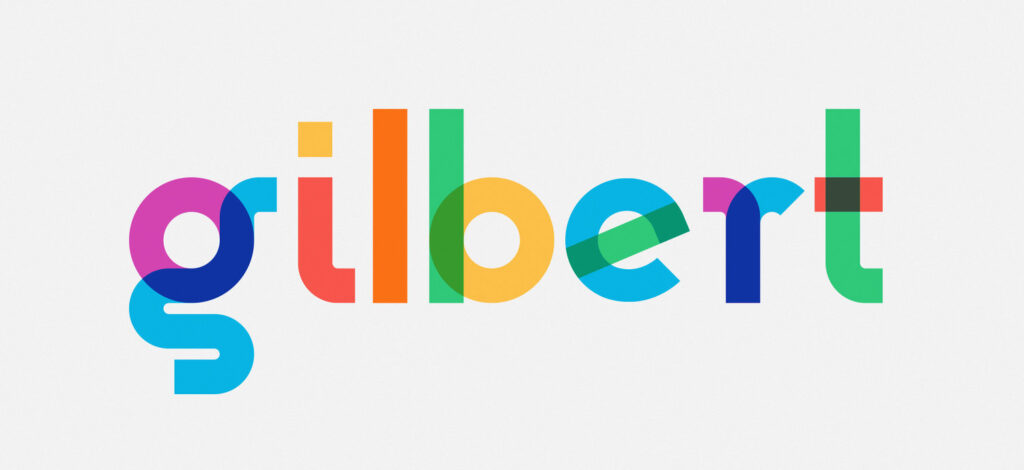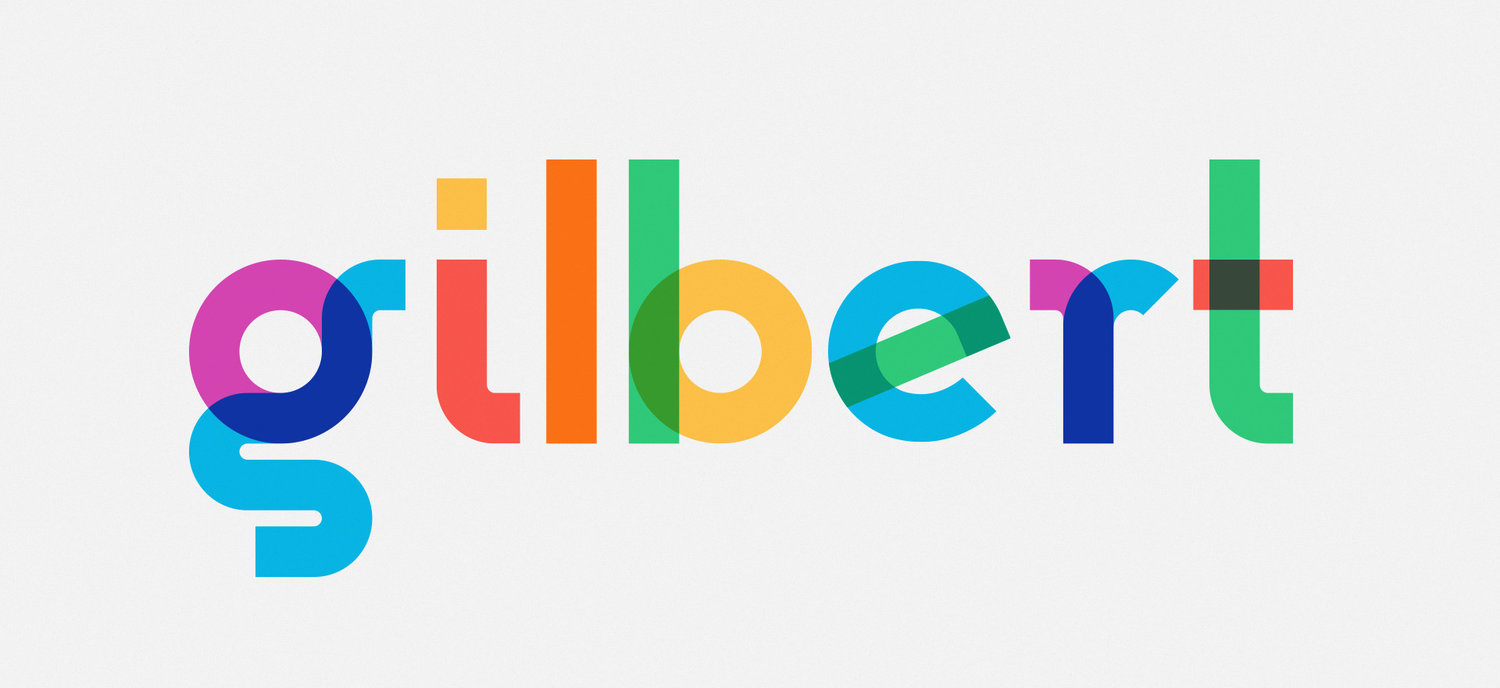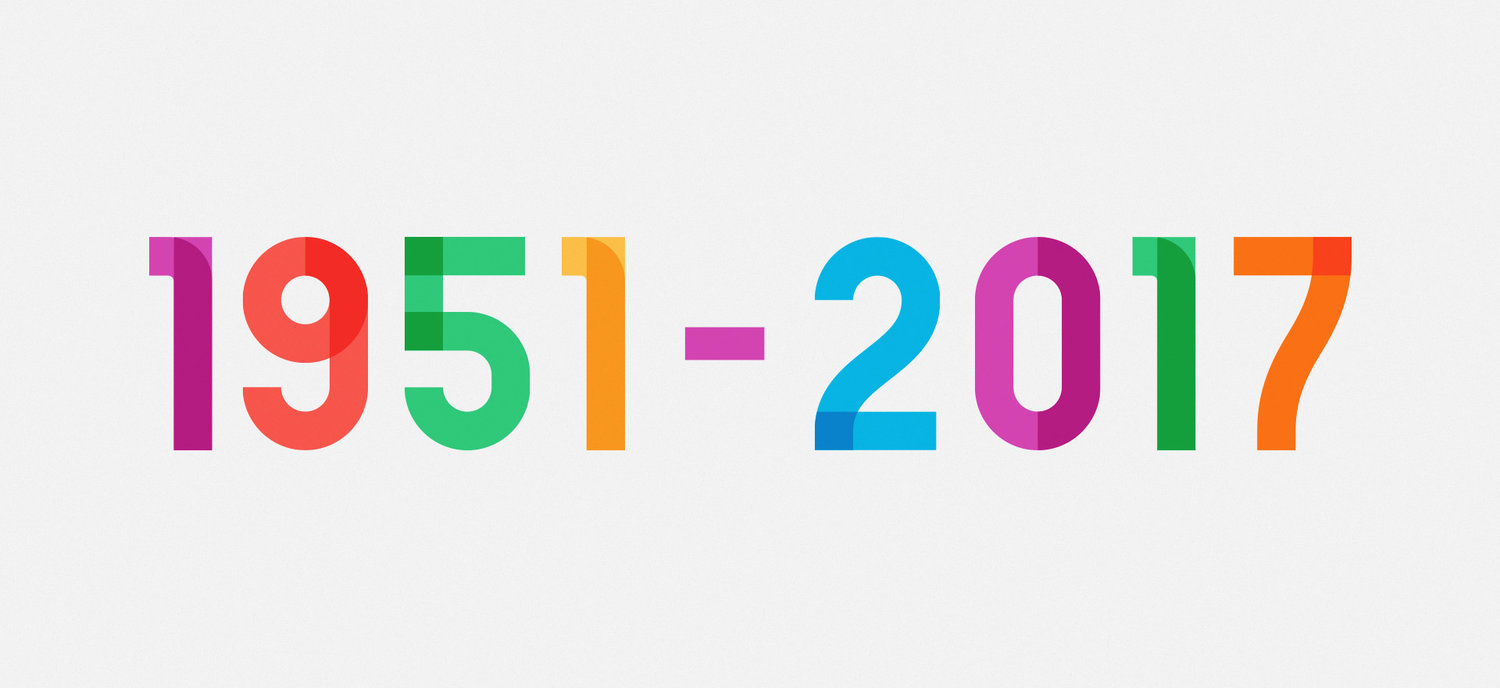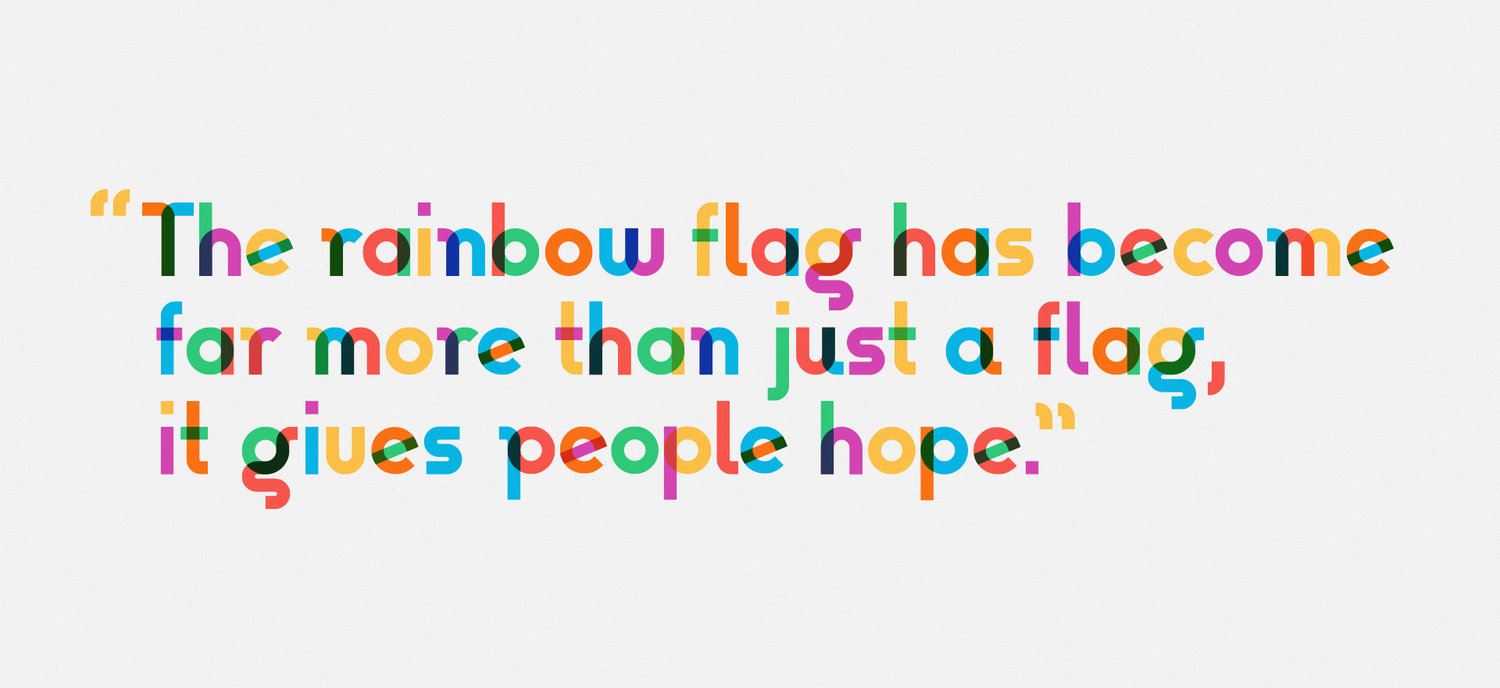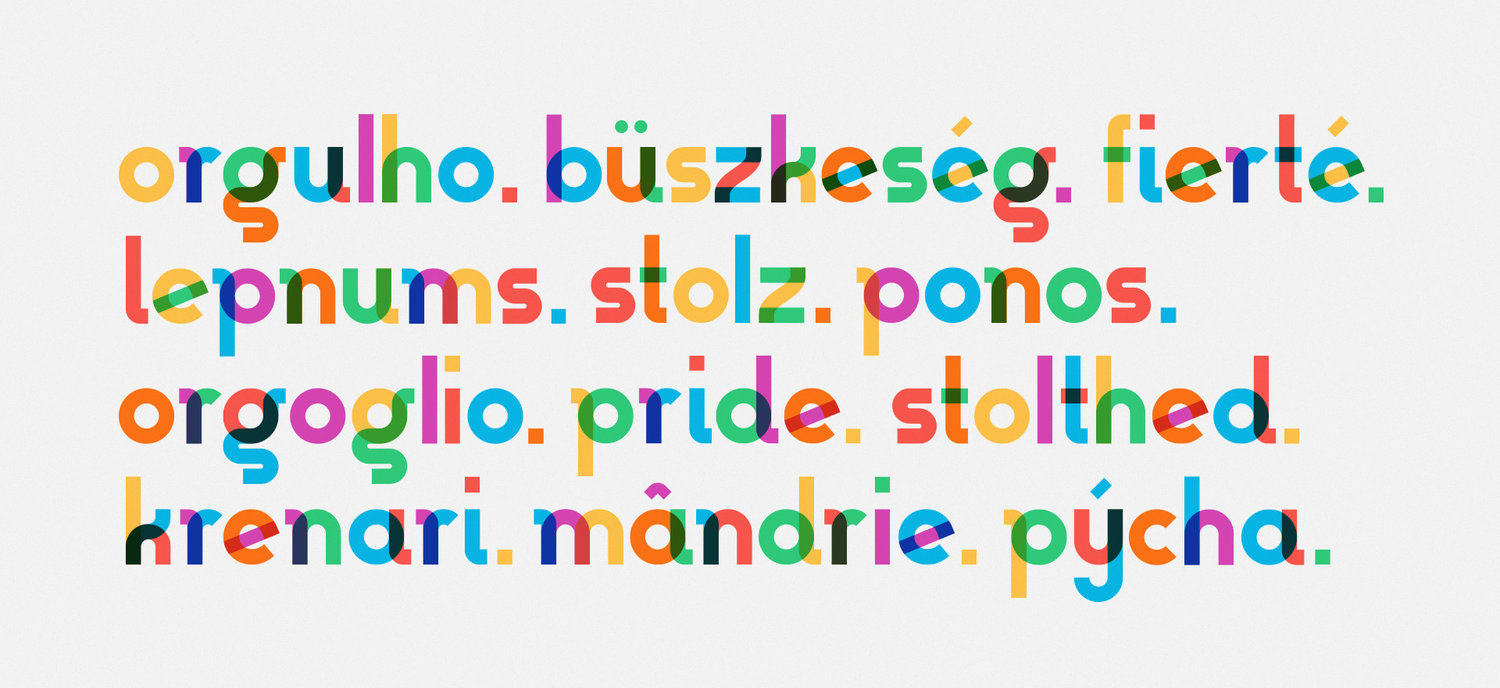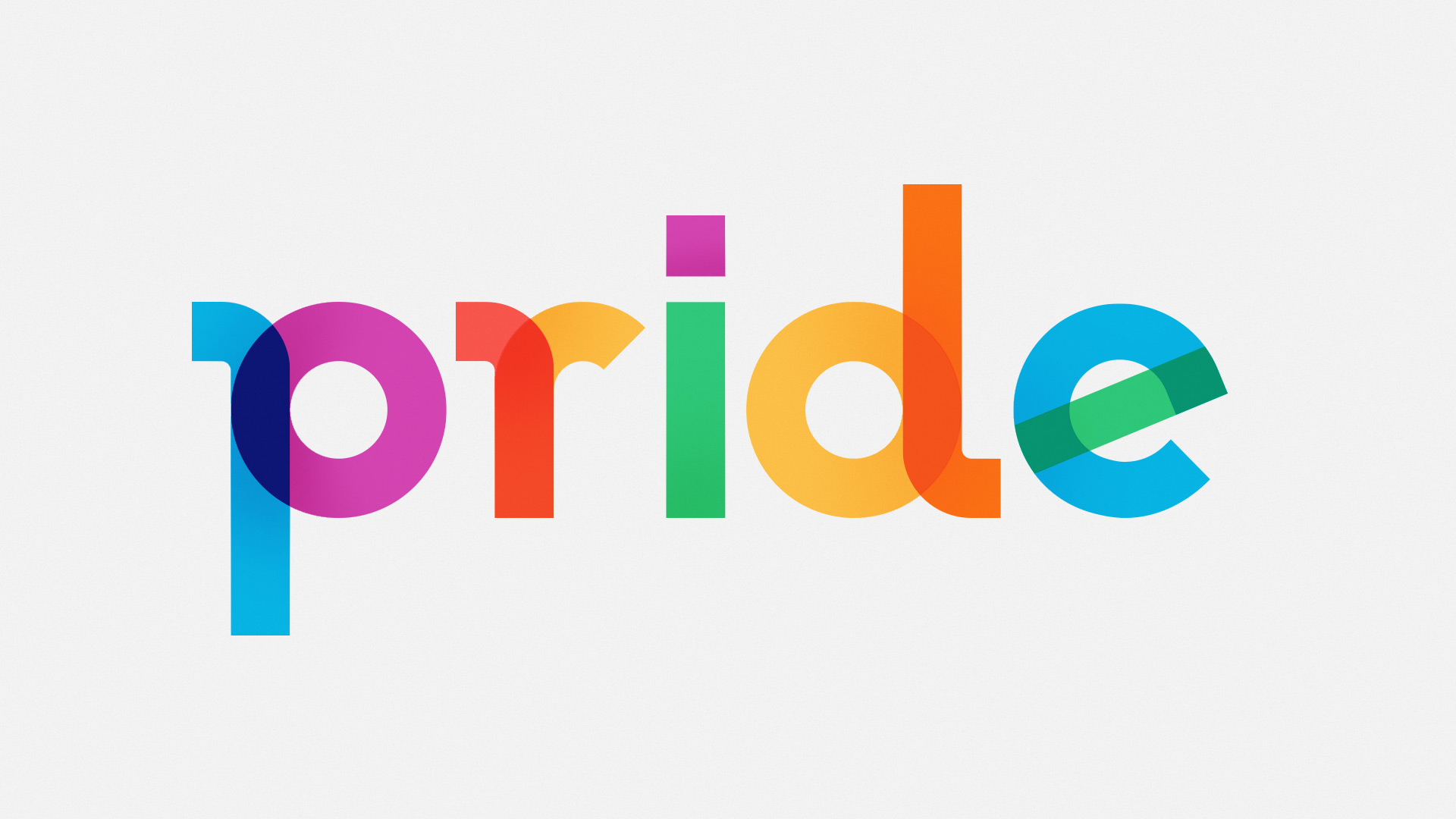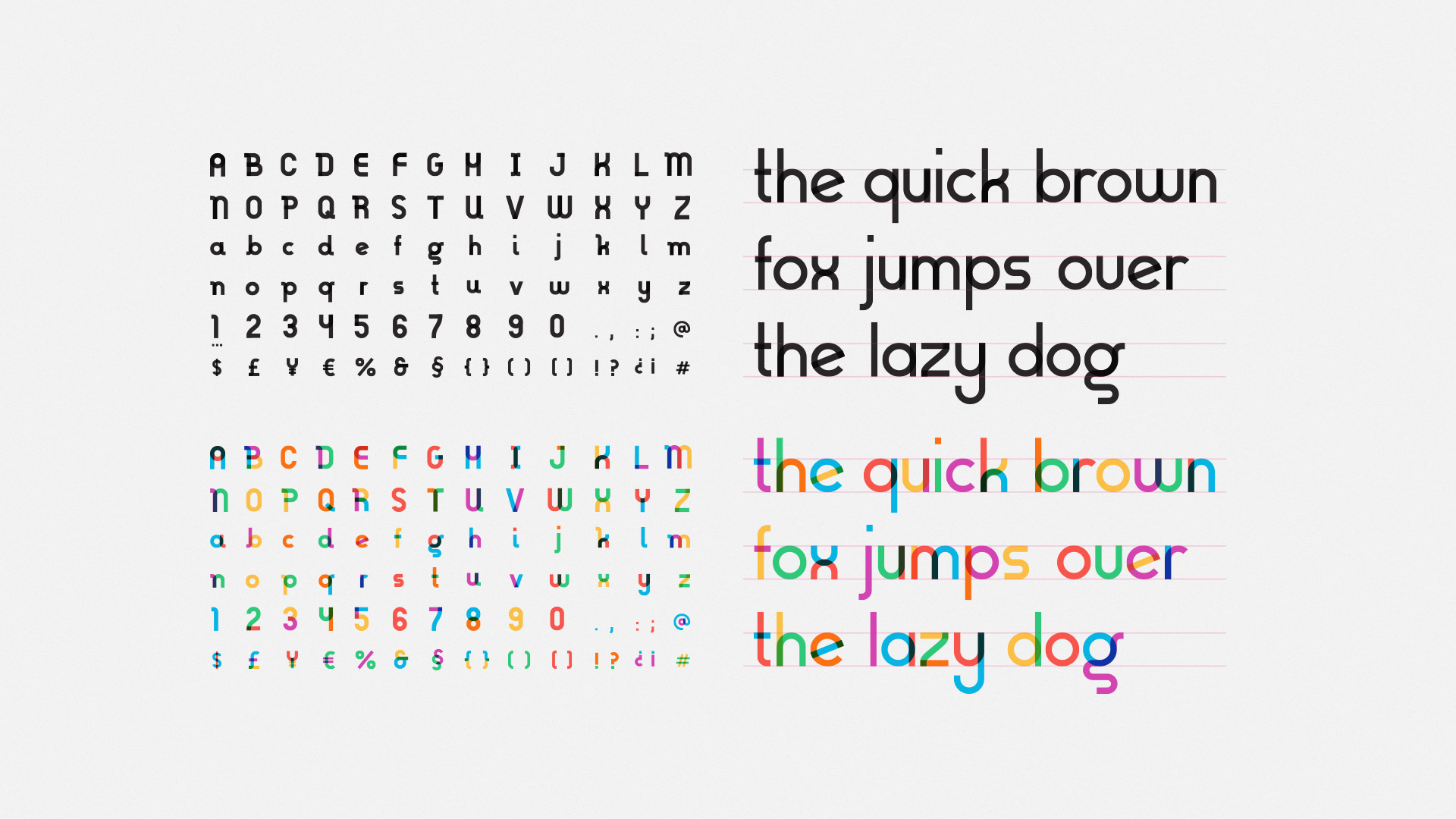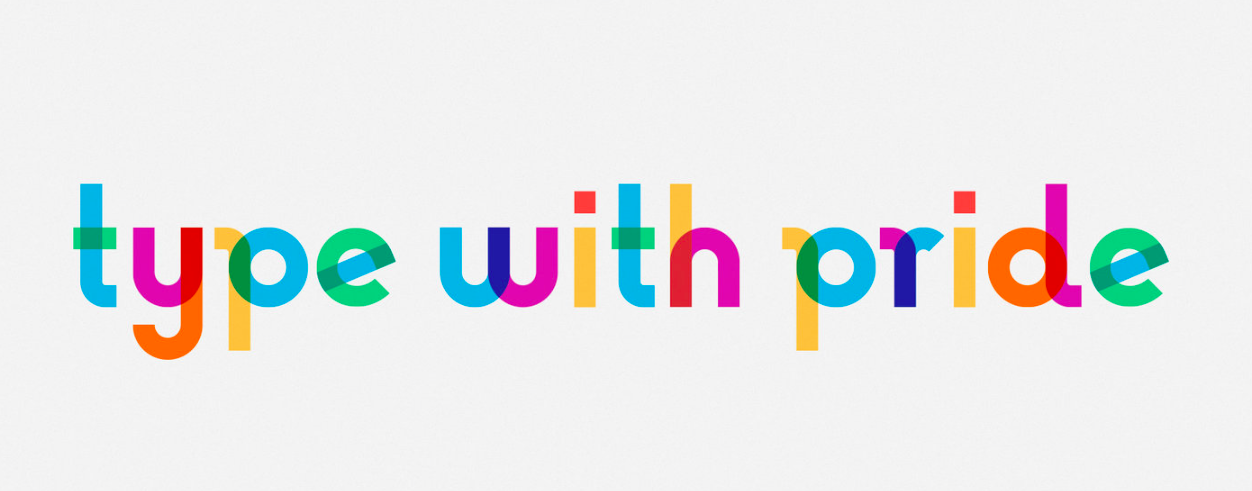
On 31 March, 2017, Gilbert Baker the creator of the iconic Rainbow Flag sadly passed away. Mr. Baker was both an LGBTQ activist and artist, and was known for helping friends create banners for protests and marches. To honor the memory of Gilbert Baker, NewFest and NYC Pride partnered with Fontself and Ogilvy to create a free font inspired by the design language of the iconic Rainbow Flag, the font was named ‘Gilbert’ after Mr. Baker. A preview version of the font can be downloaded for free below.